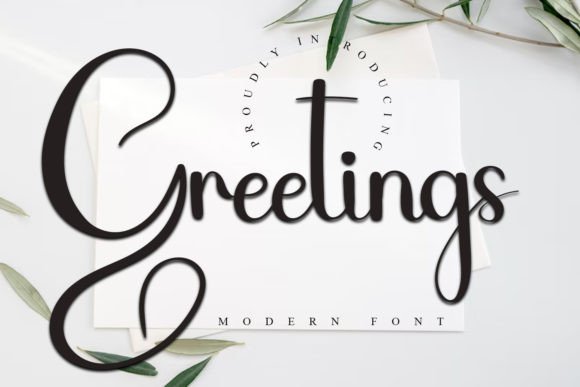
The Perfect Script Font for Your Next Design Project
Have you ever sat in front of a blank canvas, struggling to find the perfect font to capture the essence of your design? The blank page stares back, taunting you with its emptiness. This is where the magic happens – where the right font can elevate your work from ordinary to extraordinary. For designers, the search for that perfect font is a never-ending quest, and one that often leads to the discovery of hidden gems like the Greetings Font.
The Greetings Font is a masterclass in modern simplicity and elegance, making it an ideal choice for adding a personal touch to any design. Its fluid lines and effortless strokes effortlessly capture a timeless yet contemporary sense of grace and style, making it perfect for creating sophisticated branding, logos, and editorial designs.
Greetings Font Key Features
- Unique Characteristic: The font features a unique blend of modern and vintage elements, making it perfect for creating eye-catching and elegant designs
Greetings Font Review
Greetings Font is a beautiful, elegant script font that can add a touch of sophistication to any project. ✨ The flowing connections between letters and the subtle flair at the ends give it a whimsical feel that’s perfect for greeting cards, invitations, and other special occasions. ✨ The font is highly customizable, with a wide range of styles and sizes available to suit any design need.
However, there are some limitations to consider. ⚠️ The font may not be suitable for large blocks of text, as the flowing connections between letters can make it difficult to read. ⚠️ Additionally, the font is quite decorative, which may make it difficult to pair with other fonts or design elements.
Overall, I think Greetings Font is a great choice for designers looking to add a touch of elegance and sophistication to their projects. While it may have some limitations, the font’s unique style and high level of customization make it a valuable addition to any design library.
Pros and Cons:
- Beautiful, elegant script font
- Perfect for greeting cards, invitations, and other special occasions
- May not be suitable for large blocks of text
- Difficult to pair with other fonts or design elements
Getting the Most Out of Greetings Font
To get the most out of Greetings Font, consider the following tips:
- Use Greetings Font for attention-grabbing headings and titles
- Pair Greetings Font with a clean and simple font for body text
- Experiment with different font sizes and colors to create visual interest
Greetings Font is commonly used for:
- Wedding invitations and station